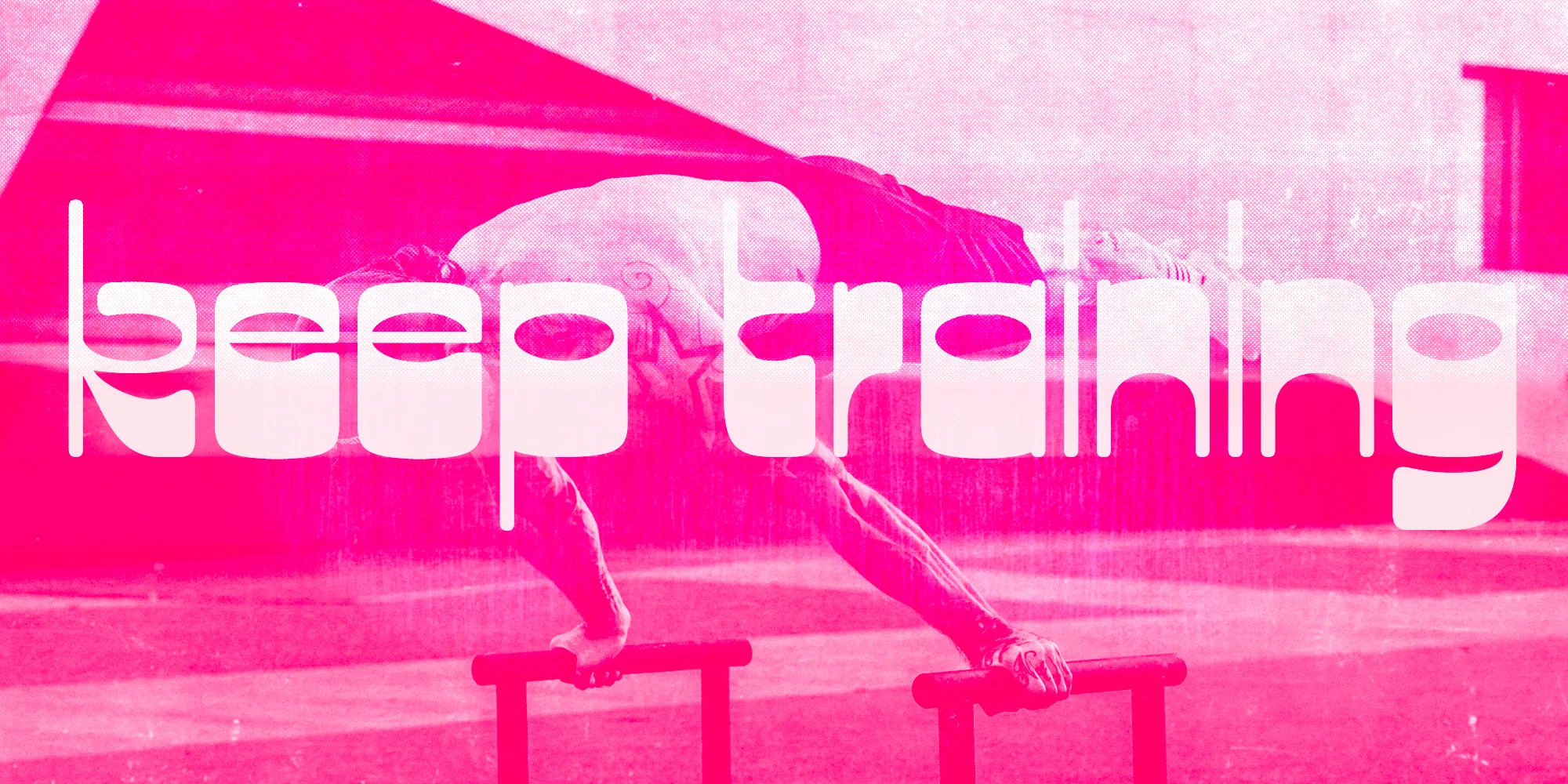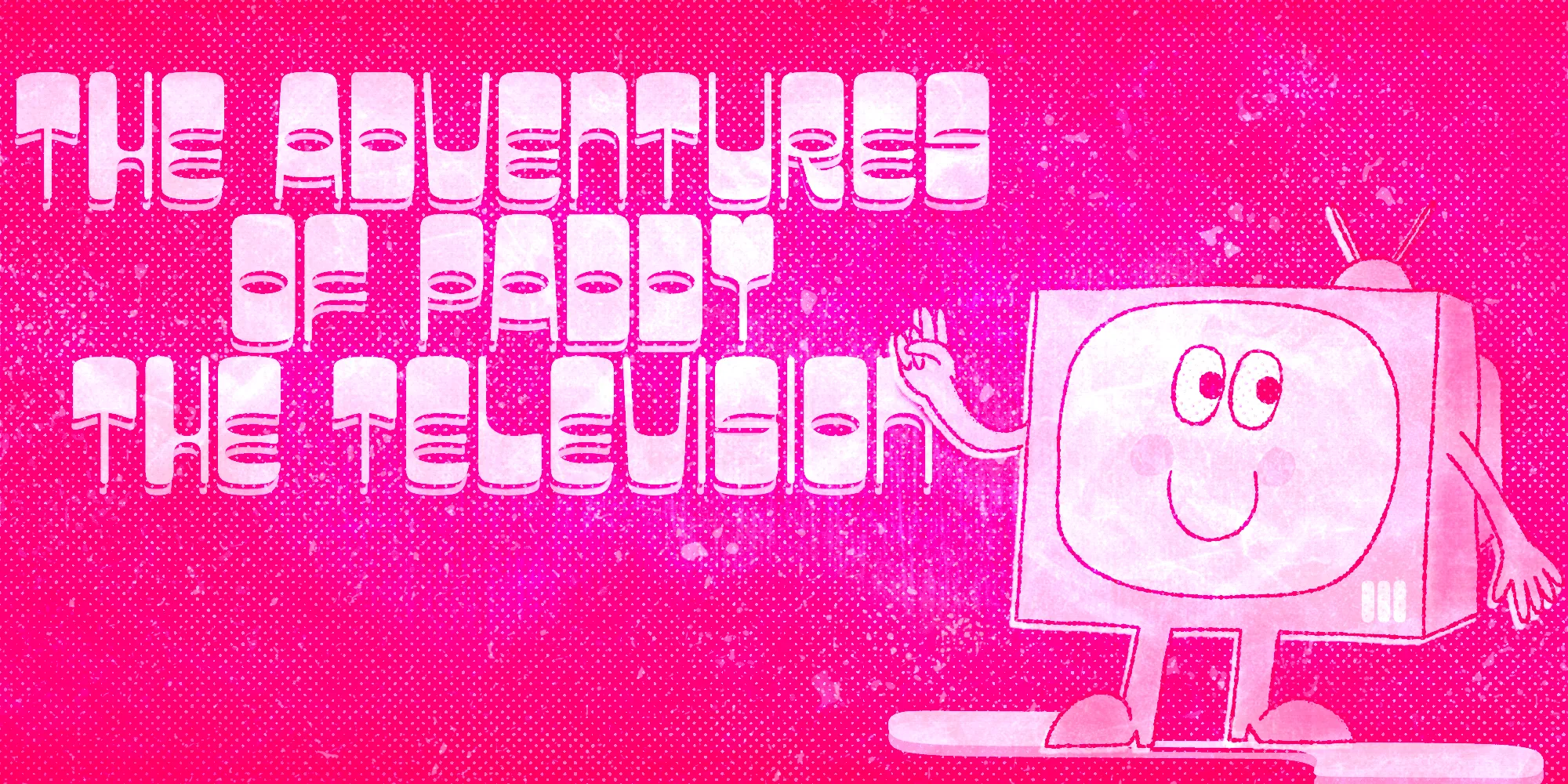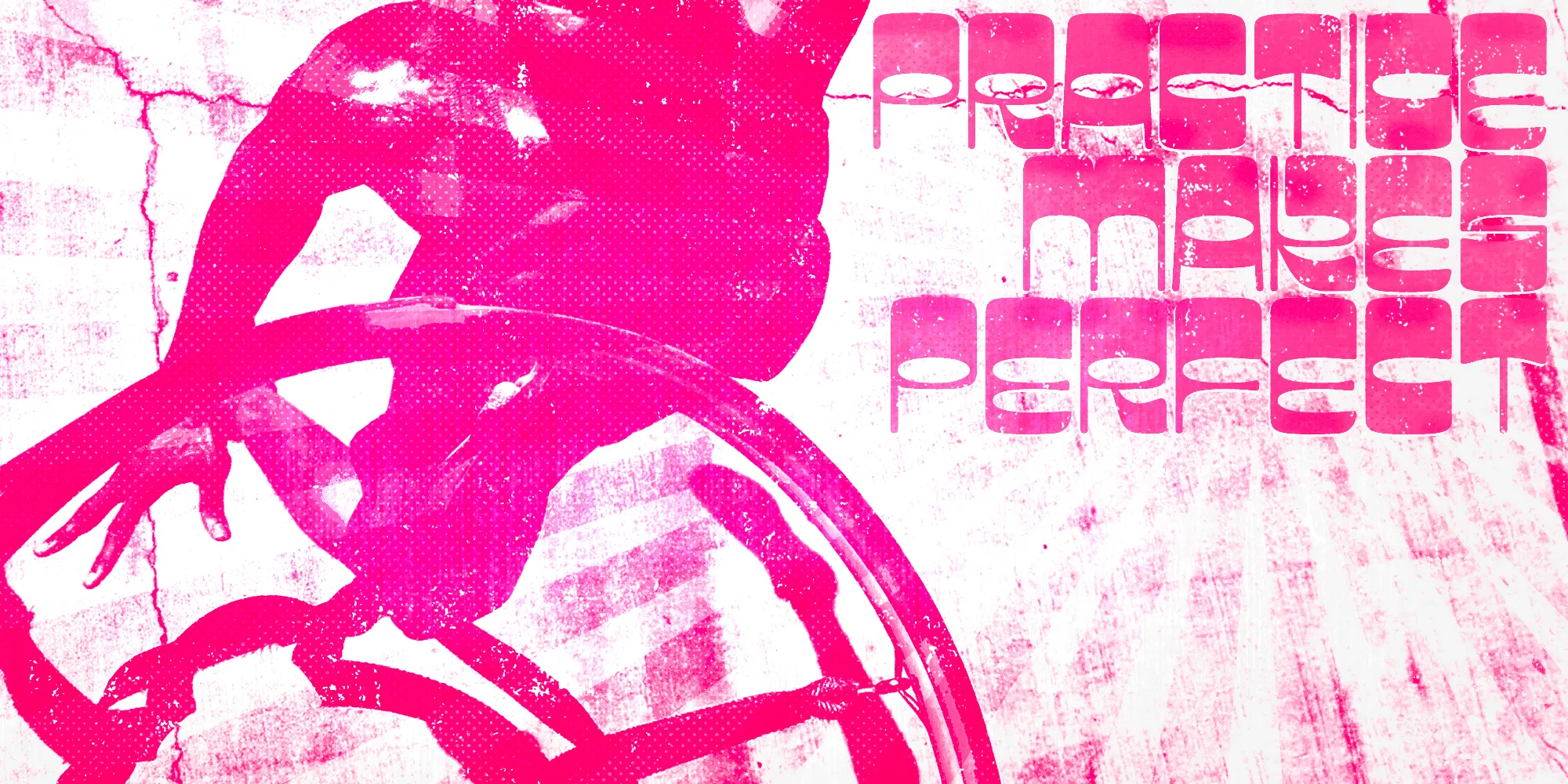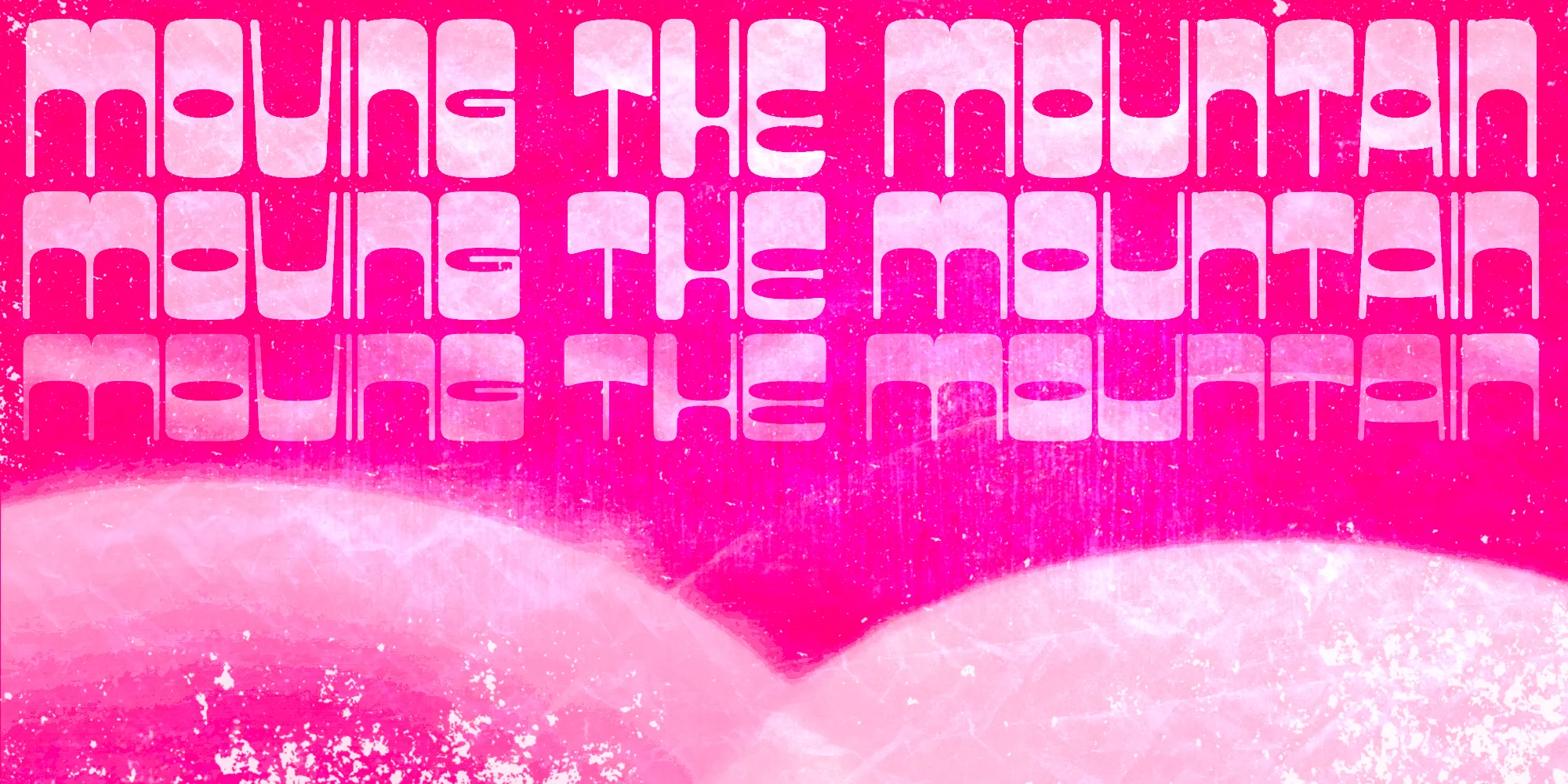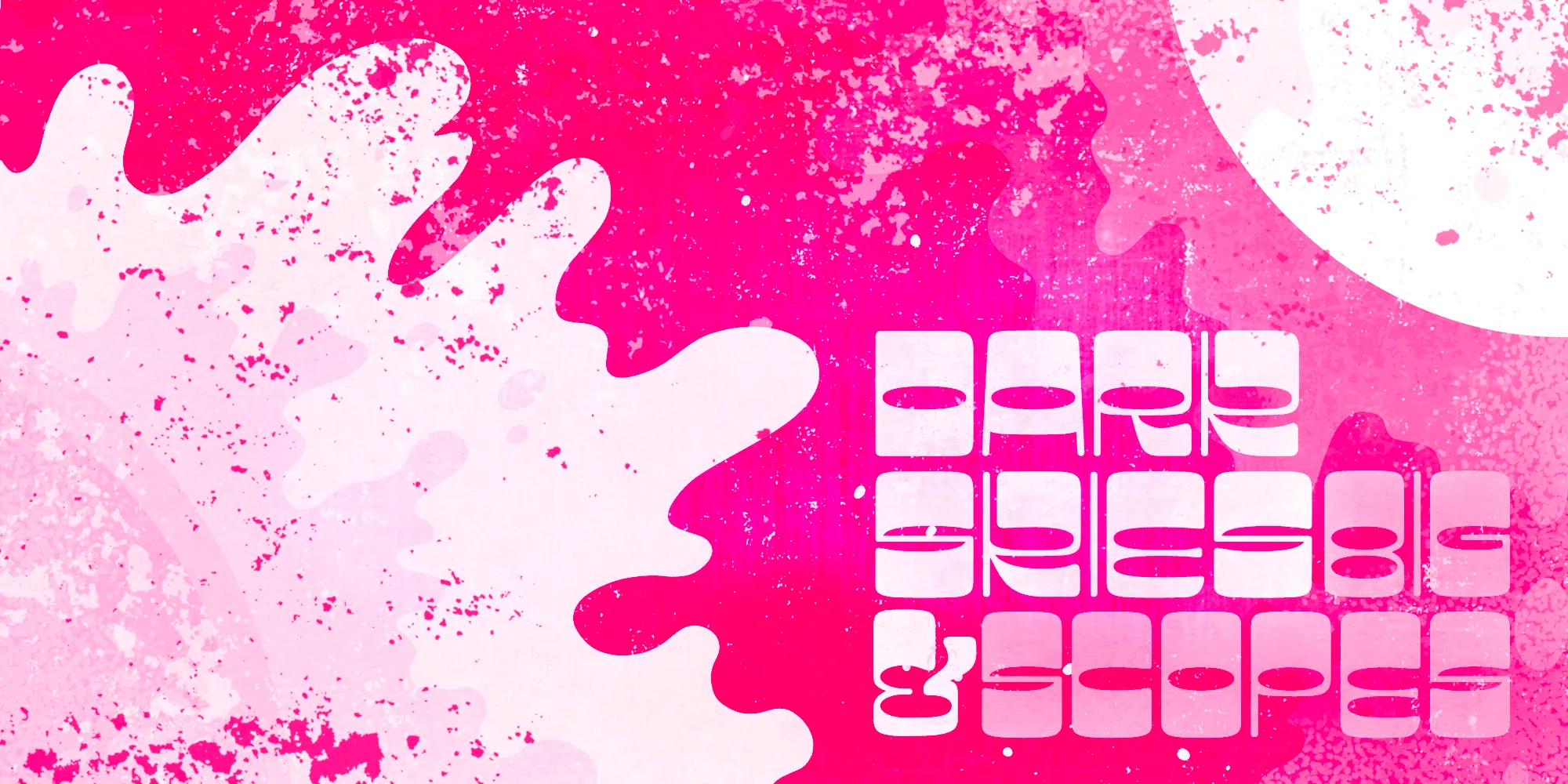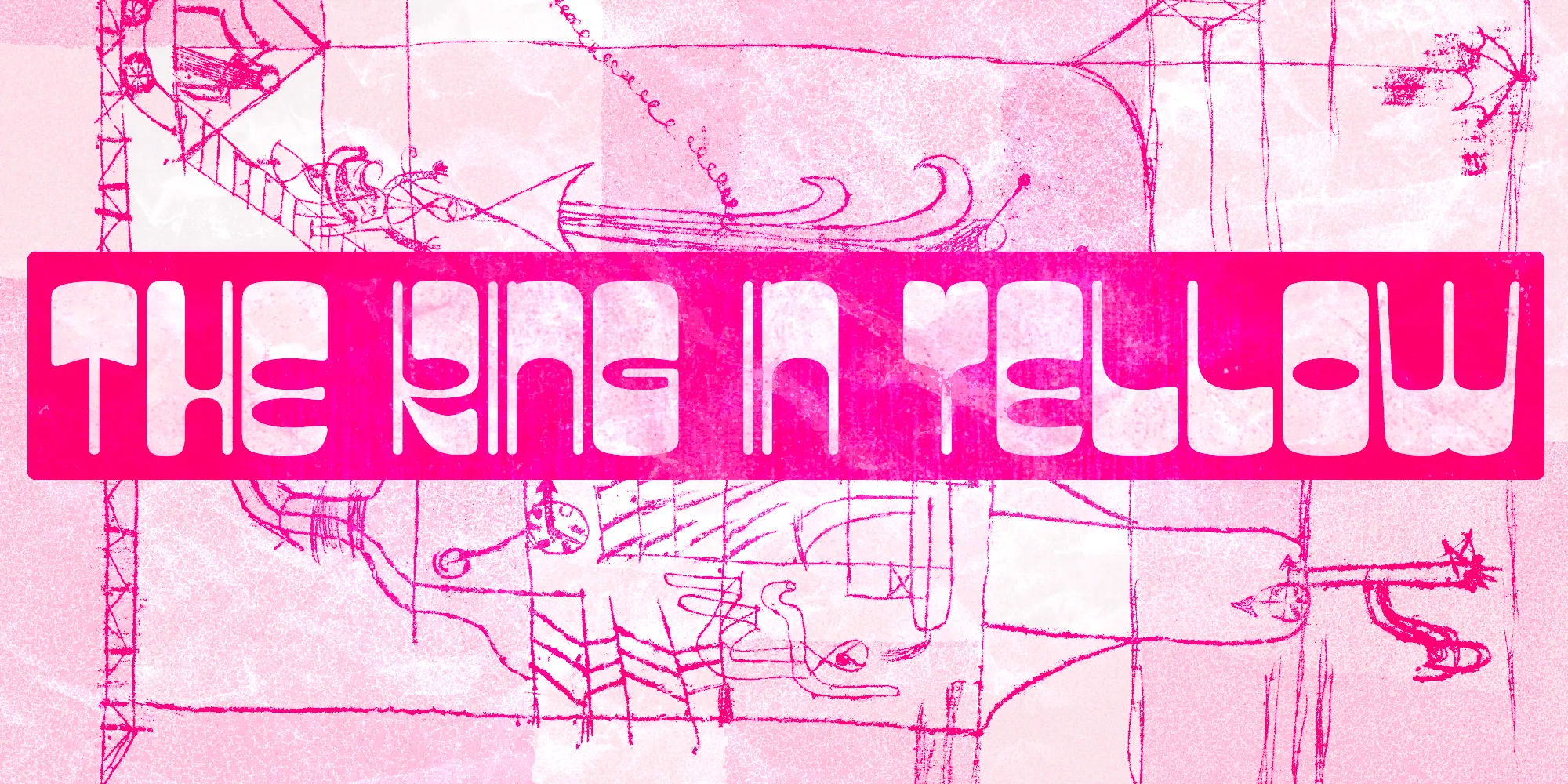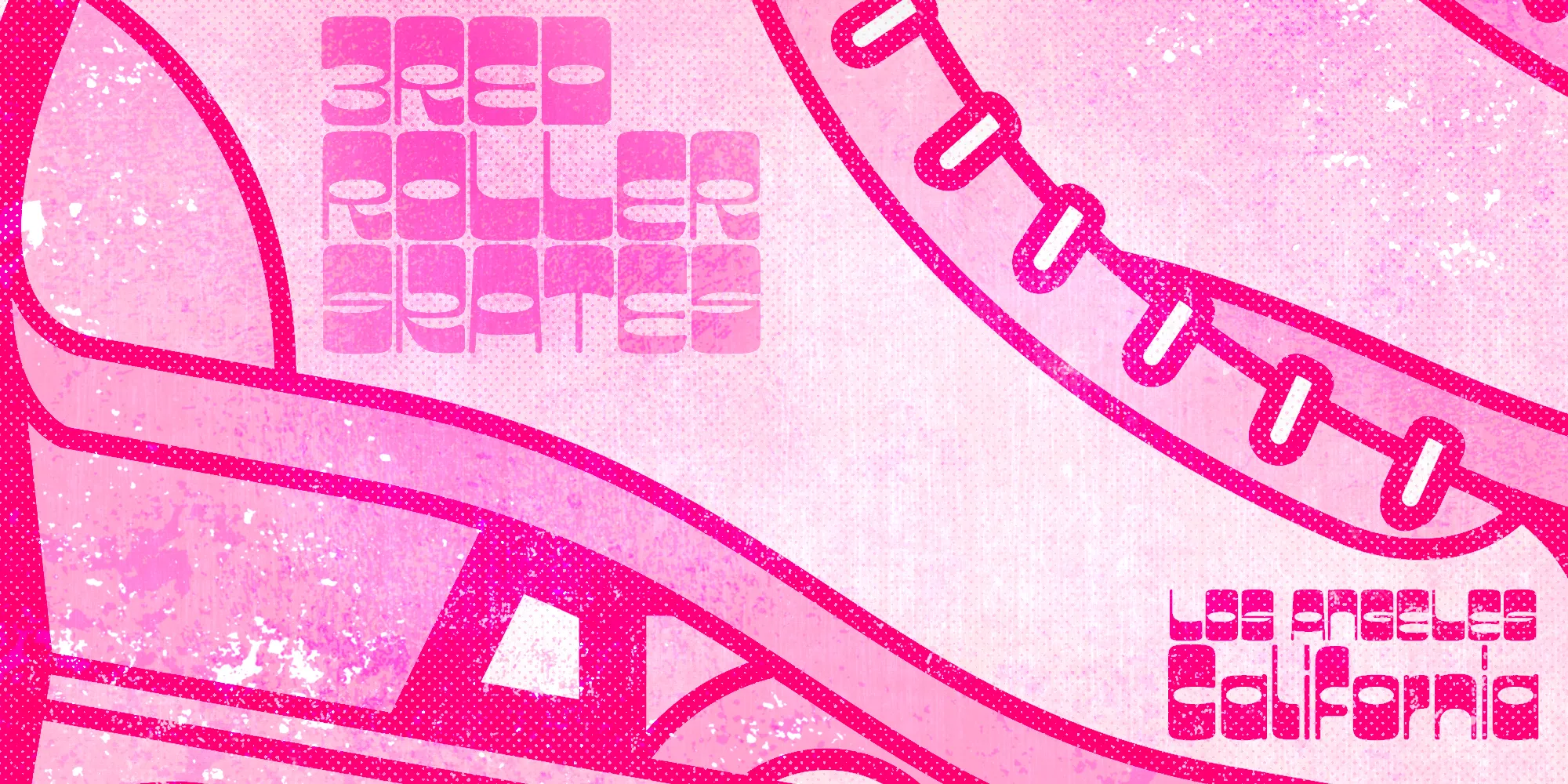
Aquatronik
Aquatronik is a decorative display face with a somewhat retro-futuristic flair. It has alternate glyphs for some letters and numerals as well as extended language support, speaking more than 200 languages. The family includes three widths for added versatility. Aquatronik is an excellent pick for eye-catching designs, including posters, book covers, album art, editorial, apparel, and many more. Have fun!
- Common Ligatures
- Fractions
- Ordinal Numerals
- Stylistic Alternates
- Stylistic Sets
- Superscript